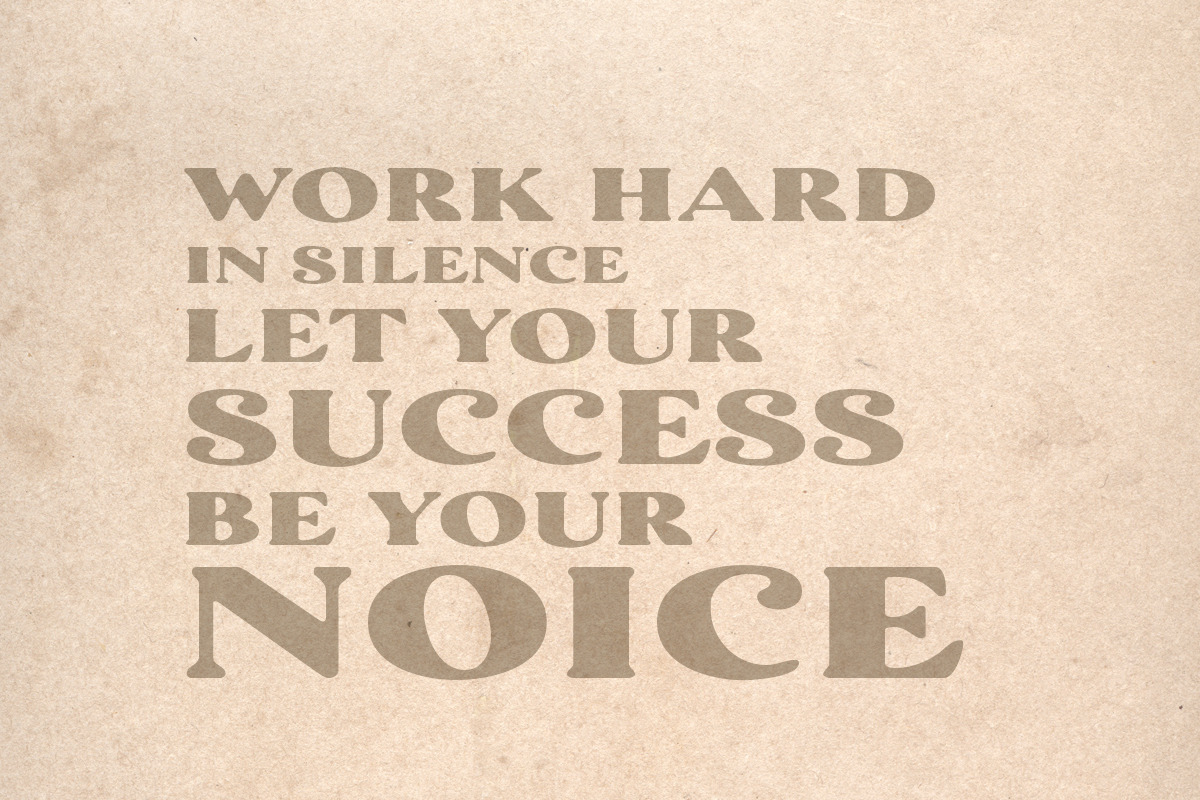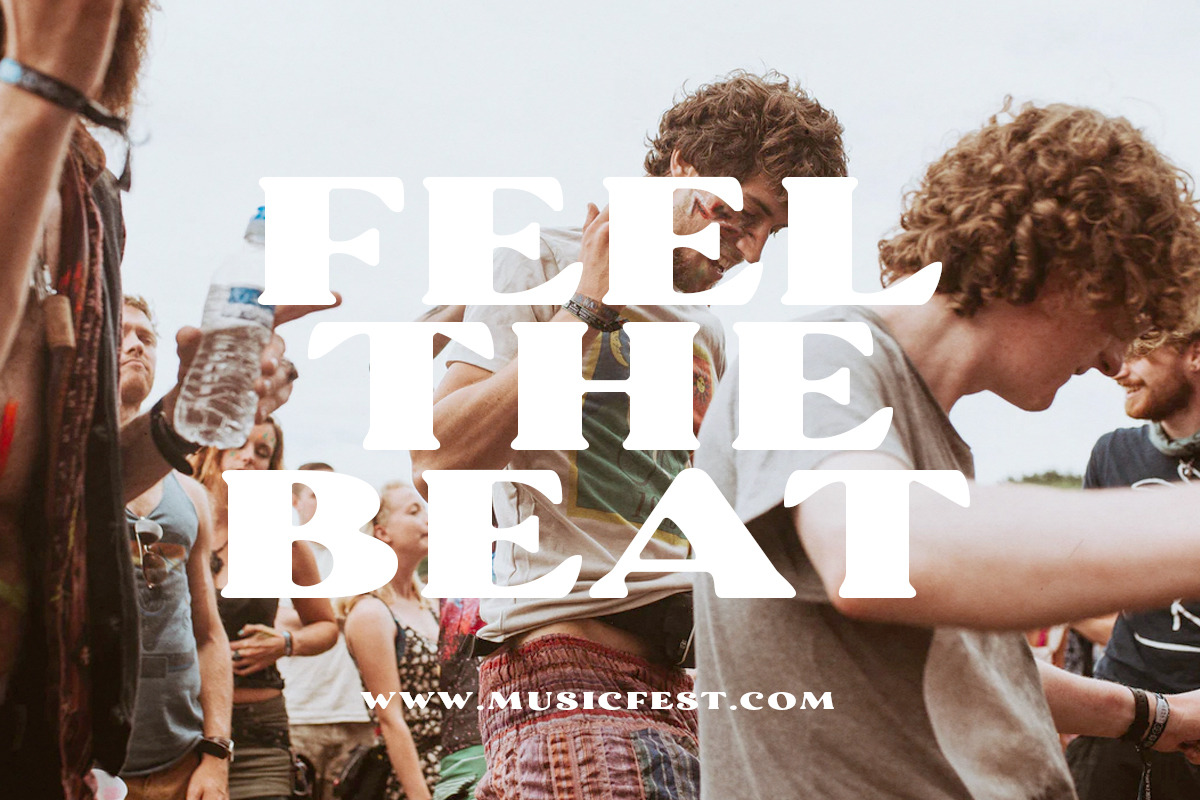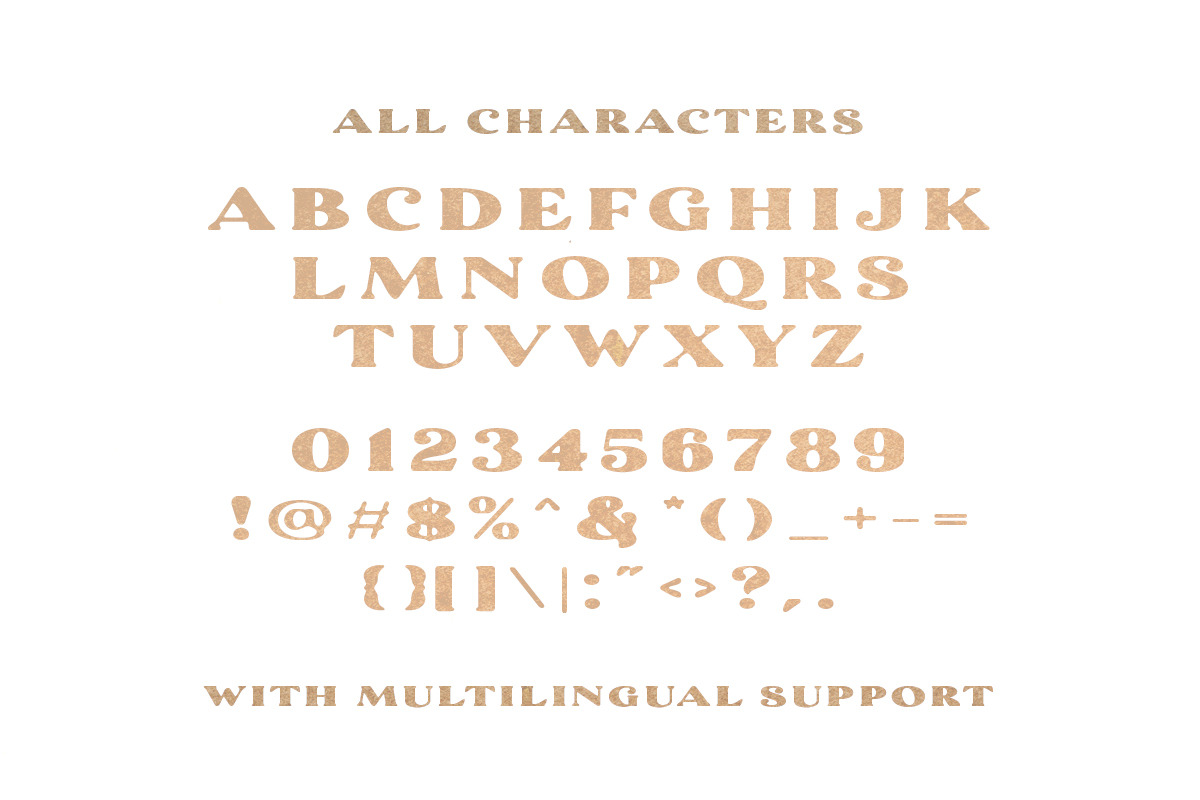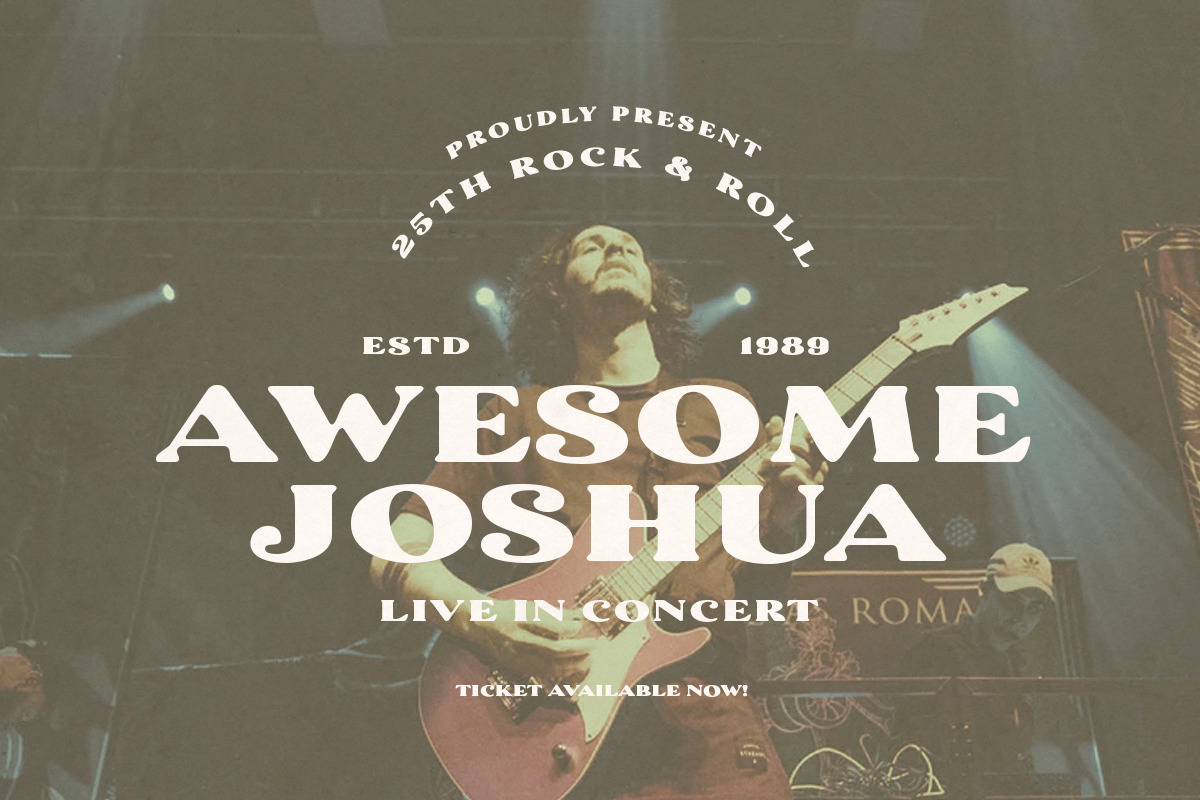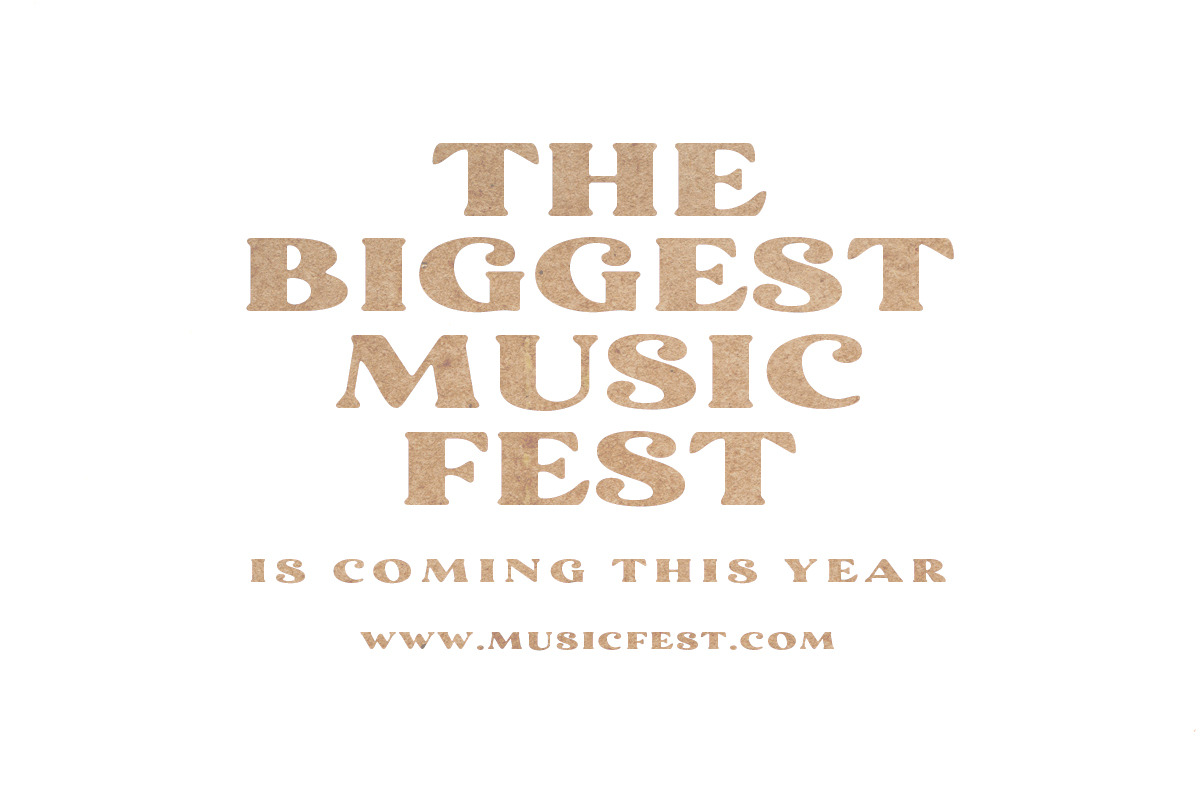
Coachella - Vintage Inspired Serif
Introducing Coachella, a serif typeface with vintage vibes!
Coachella is a vintage inspired serif that will make your project more vintage and modern. You can use this font for any project, such as poster, music concert announcement, or for your logo. This font have a rough detail that will make your design more handmade. This font also support multi language.